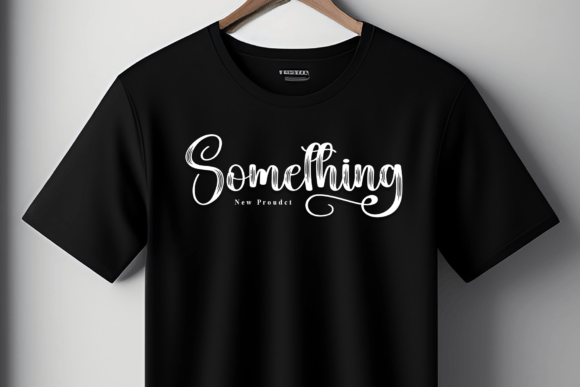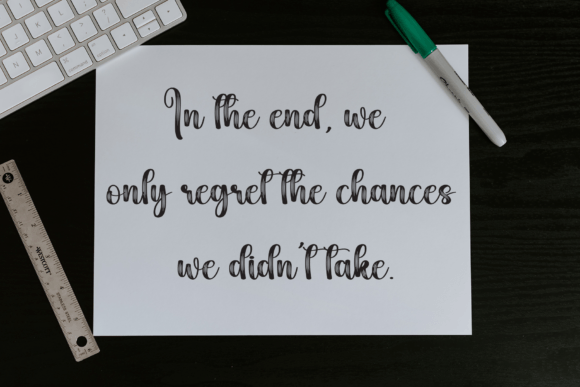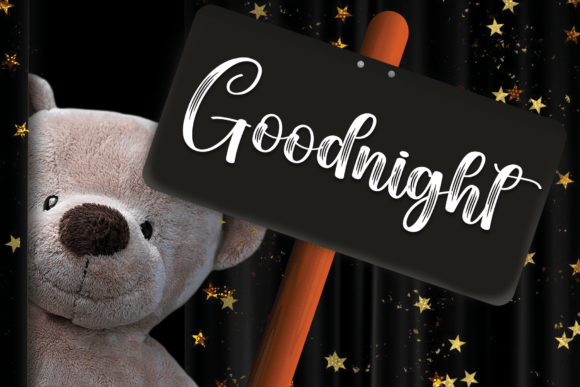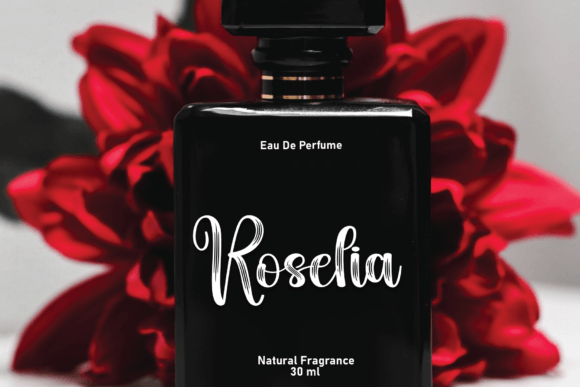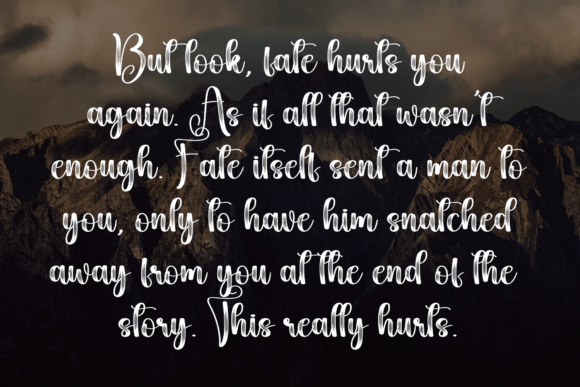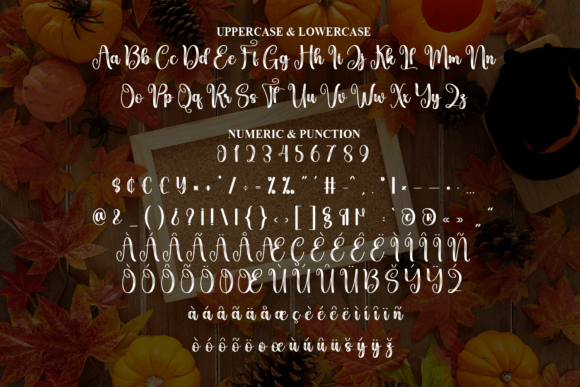
A Season of Celebration: The Magic of Autumn Birthday Font
As the crisp autumn air fills your lungs and the vibrant leaves paint the landscape with warm hues, you can’t help but feel a sense of excitement and nostalgia. The smell of pumpkin spice wafts through the air, and the sound of laughter echoes through the streets as friends and family gather to celebrate the season’s joyous spirit. It’s a time for cozy nights, warm moments, and treasured memories – and what better way to commemorate this special time than with a beautiful Autumn Birthday Font?
For designers, the Autumn Birthday Font is a valuable tool in capturing the essence of this festive season. With its playful and whimsical feel, it’s the perfect way to add a touch of autumnal charm to any design project. Whether it’s a birthday invitation, a seasonal greeting card, or a festive social media post, the Autumn Birthday Font is sure to bring a smile to the faces of your loved ones.
Autumn Birthday Font Key Features
- Font Family: Autumn Birthday, a unique and elegant script font designed to evoke the warmth and coziness of autumn.
- Font Size: Supports font sizes from 8 to 72 points, making it suitable for various design applications, including invitations, greeting cards, and signage.
- Unique Characteristics: The font features intricate, hand-drawn letterforms with subtle texture and shading, giving it a warm and inviting feel.
- Font Style: The Autumn Birthday font comes in a single style, with no bold or italic variations, but its elegant and flowing design makes it perfect for a variety of applications.
Autumn Birthday Font Review
Overall, I think the Autumn Birthday Font is a sweet and endearing design choice for a birthday celebration. ✨ It’s perfect for fall-themed parties or for anyone with a love for the changing leaves and cozy atmosphere of autumn. The font’s mix of cursive and script elements creates a warm and inviting feel that’s sure to put a smile on anyone’s face.
- ✨ The font’s playful, handwritten style adds a personal touch to any design.
- ✨ The use of fall colors like orange, yellow, and red is a great nod to the season.
- ✨ The font is highly customizable, making it easy to adjust the size, color, and style to fit your needs.
- ⚠️ The font may be a bit too cursive for some designs, making it harder to read.
- ⚠️ Some of the characters may not be fully supported, which can cause issues with certain software or operating systems.
- ⚠️ The font may not be suitable for formal or professional designs, as it’s a bit too playful and casual.
Overall, I think the Autumn Birthday Font is a great choice for fall-themed designs or for anyone who wants to add a touch of whimsy to their birthday celebration. With a little creativity and customization, it’s sure to be a hit!
Some tips for getting the most out of the Autumn Birthday Font include:
- Using it for invitations, greeting cards, and party decorations.
- Pairing it with warm and earthy color schemes to create a cozy atmosphere.
- Experimenting with different font sizes and styles to create visual interest.
Playfair Display is a luxurious and elegant script font, ideal for high-end designs and special occasions. It features intricate flourishes and refined lines, perfect for creating a sophisticated and refined atmosphere. Compared to Autumn Birthday Font, Playfair Display has a more formal and sophisticated feel, making it suitable for wedding invitations, luxury branding, and special events.
Carolyna Pro is a modern and elegant script font, suitable for a wide range of designs, from fashion and beauty to weddings and special occasions. It features a flowing and dynamic feel, making it perfect for creating a sense of movement and energy. Compared to Autumn Birthday Font, Carolyna Pro has a more modern and trendy feel, making it suitable for fashion brands, beauty products, and lifestyle designs.
What is the recommended font size for using the Autumn Birthday Font?
The recommended font size for using the Autumn Birthday Font is between 12pt and 24pt. However, you can adjust the font size to suit your design needs. Keep in mind that smaller font sizes may affect readability, especially for text-heavy designs.